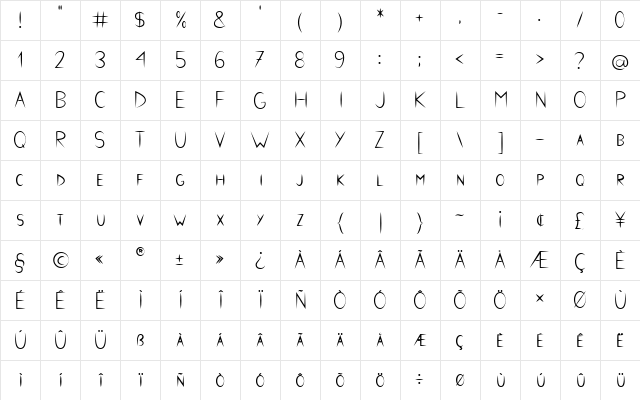
Mysterium Regular
| Designer | Barbara Trein |
Design Context for Mysterium Typeface
Mysterium is a composed and adaptable typeface that performs quietly and consistently across a wide range of design contexts.